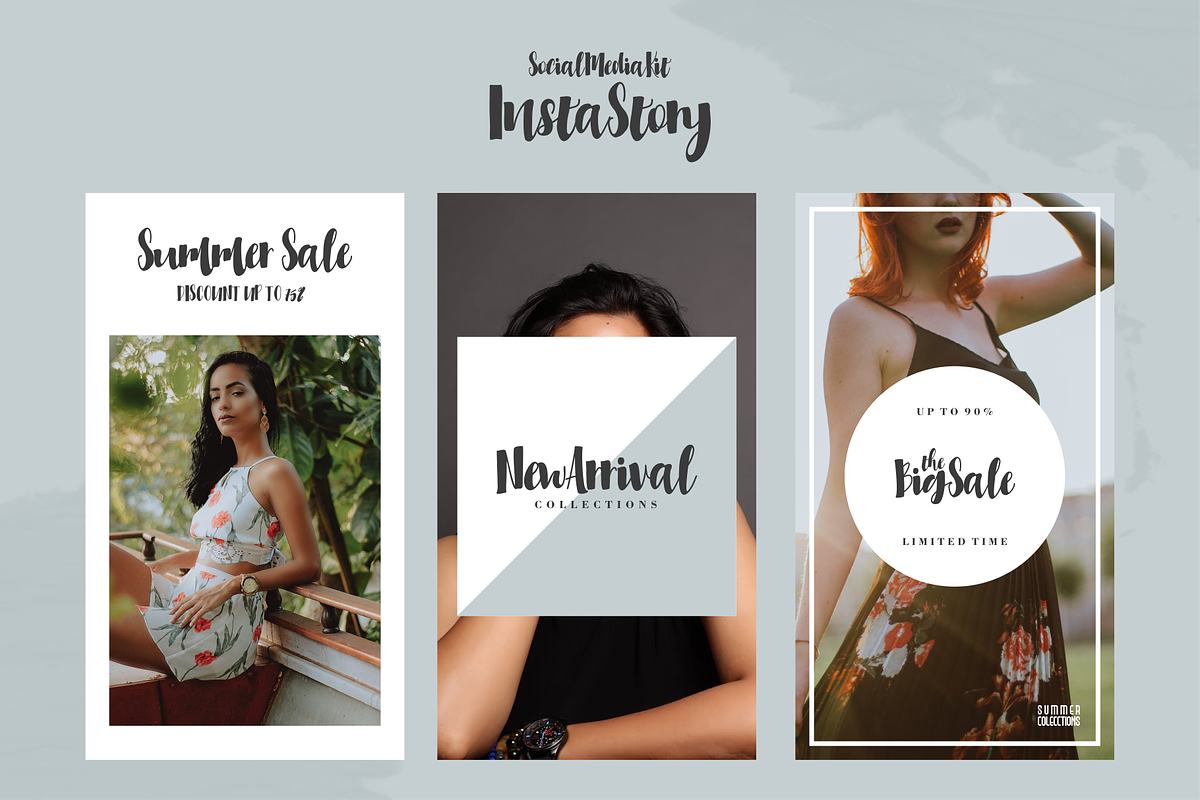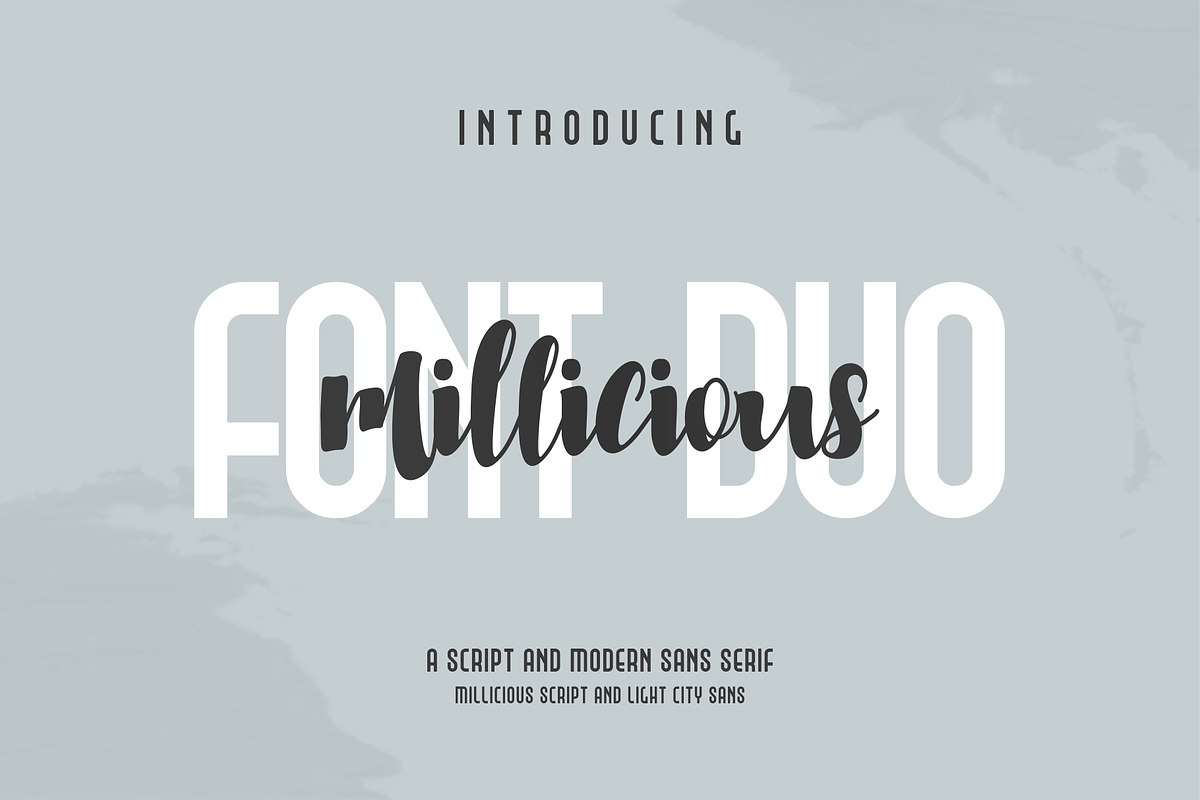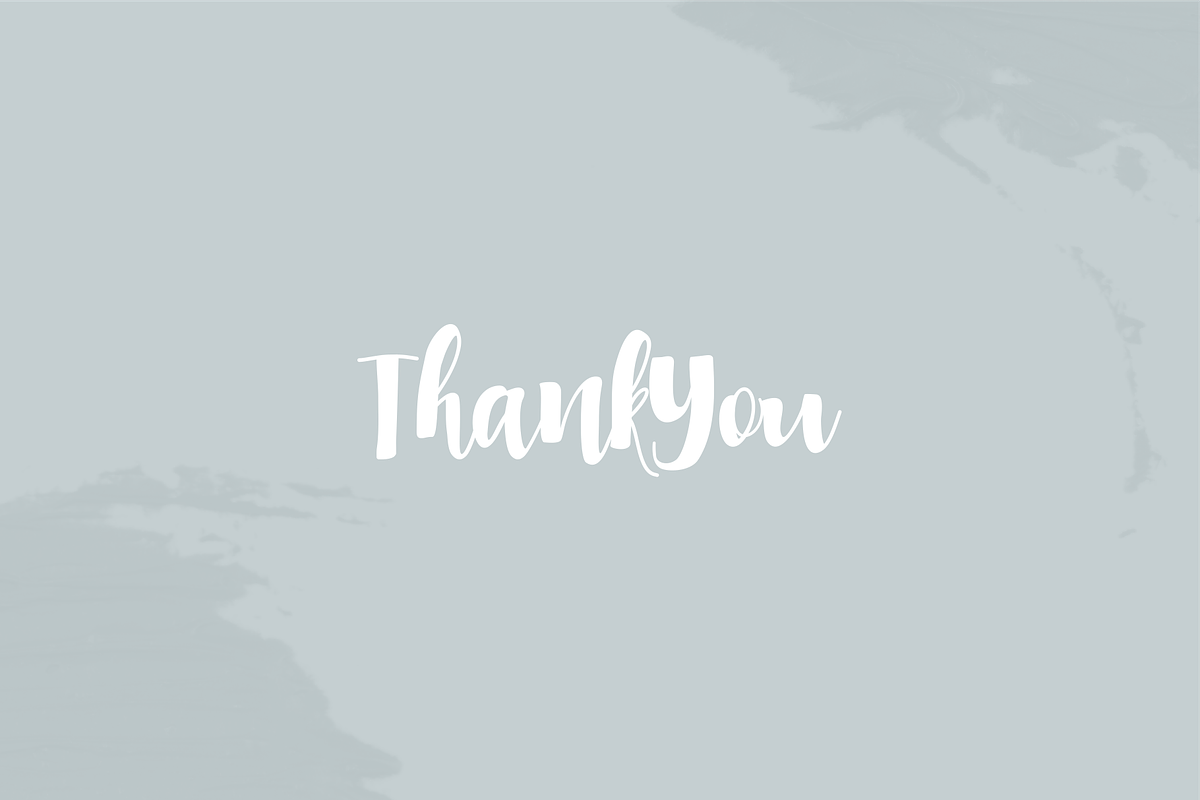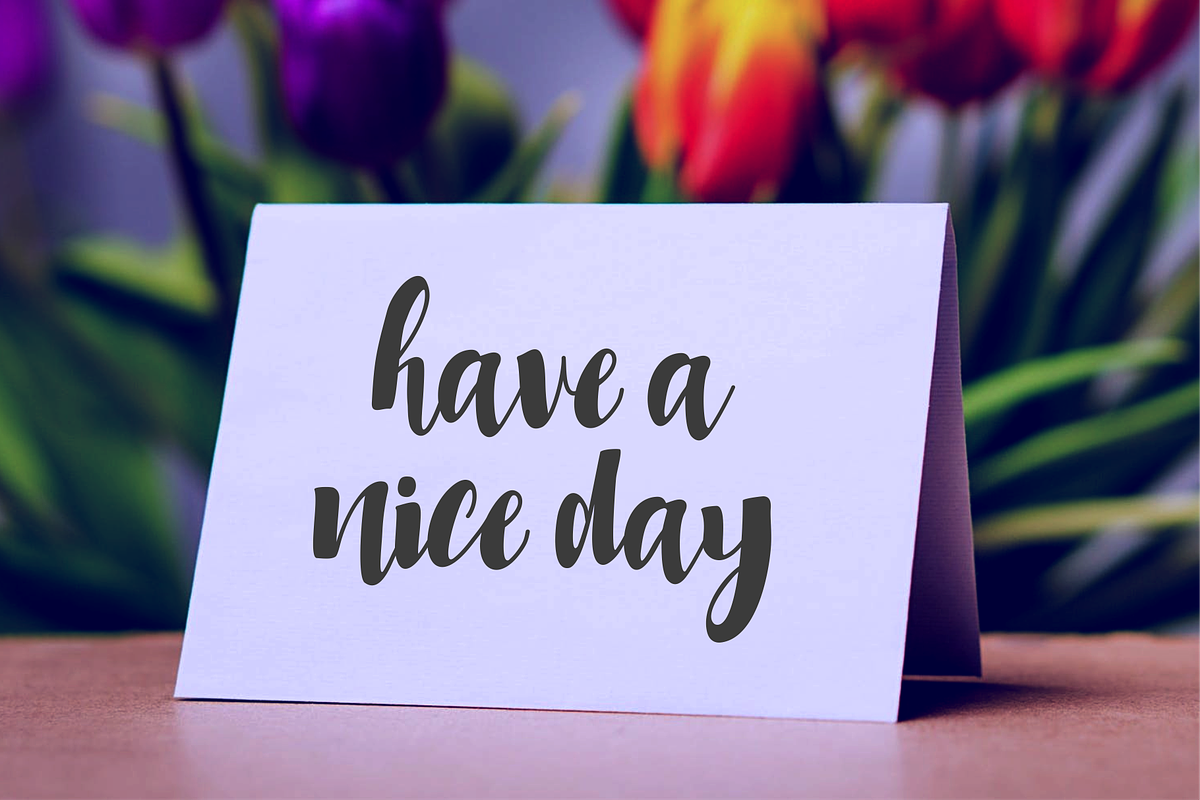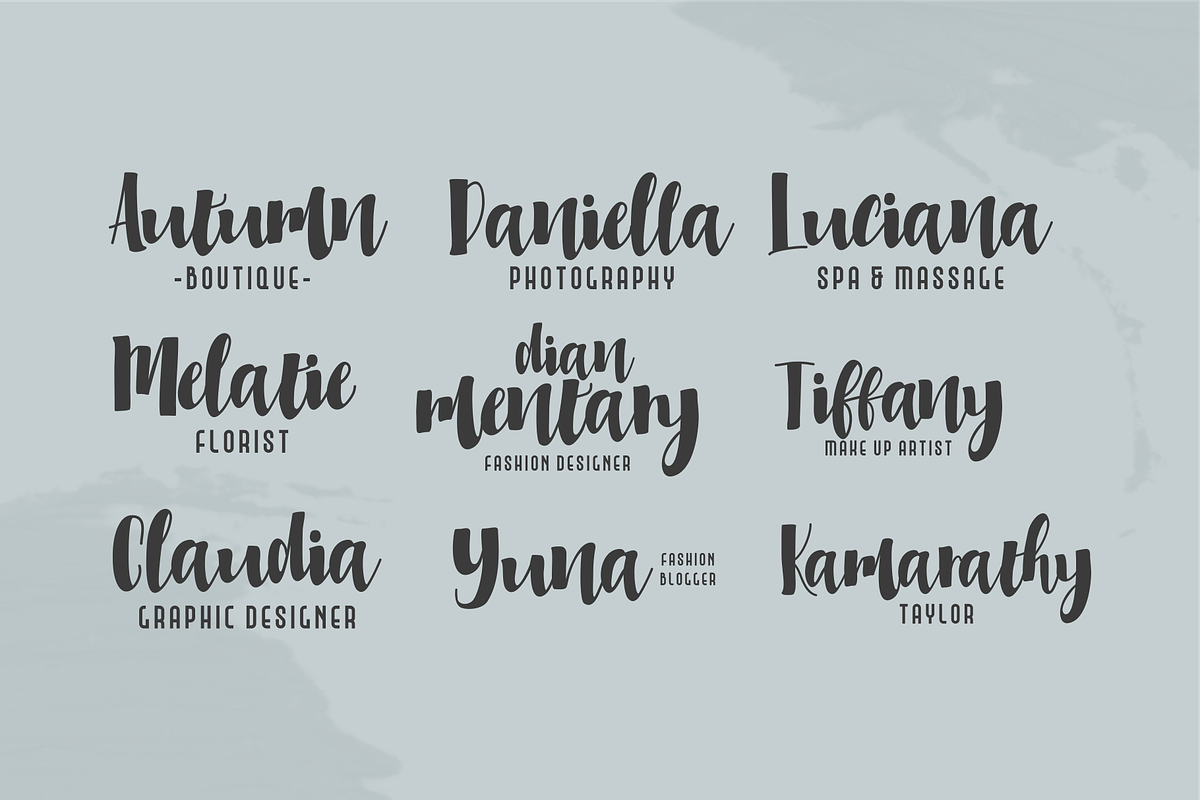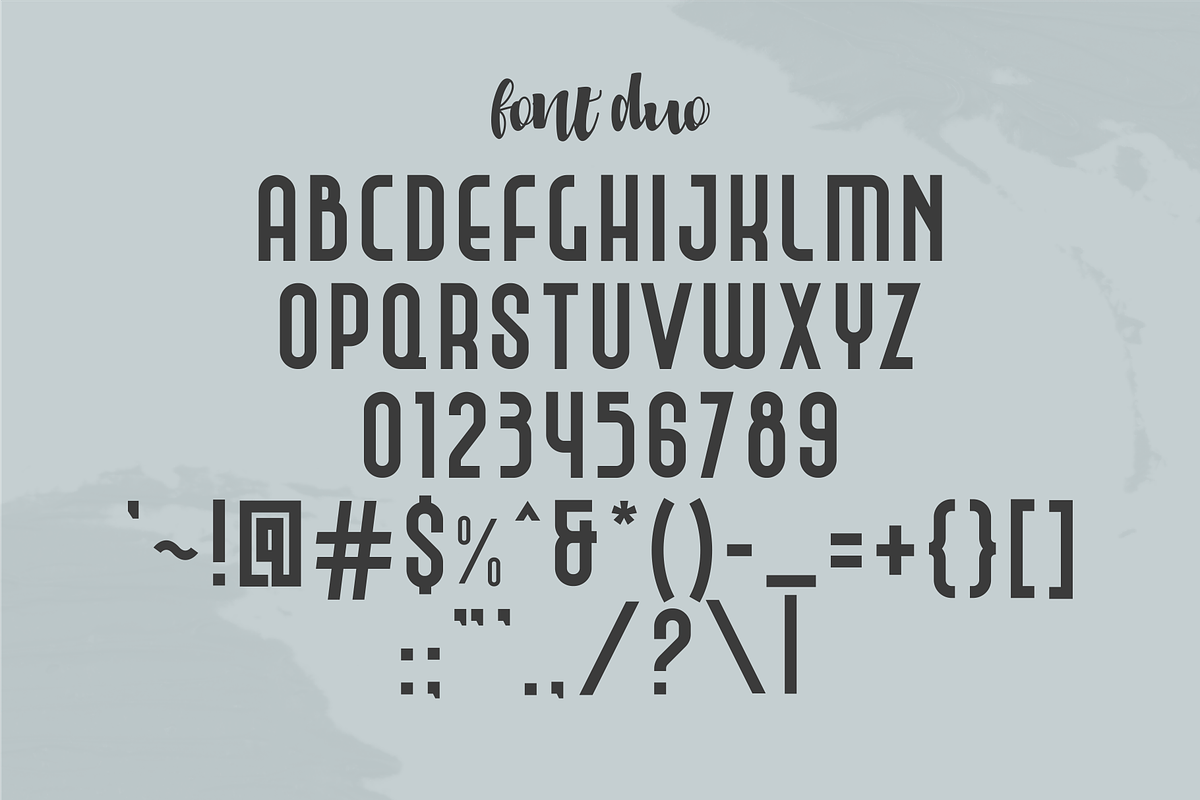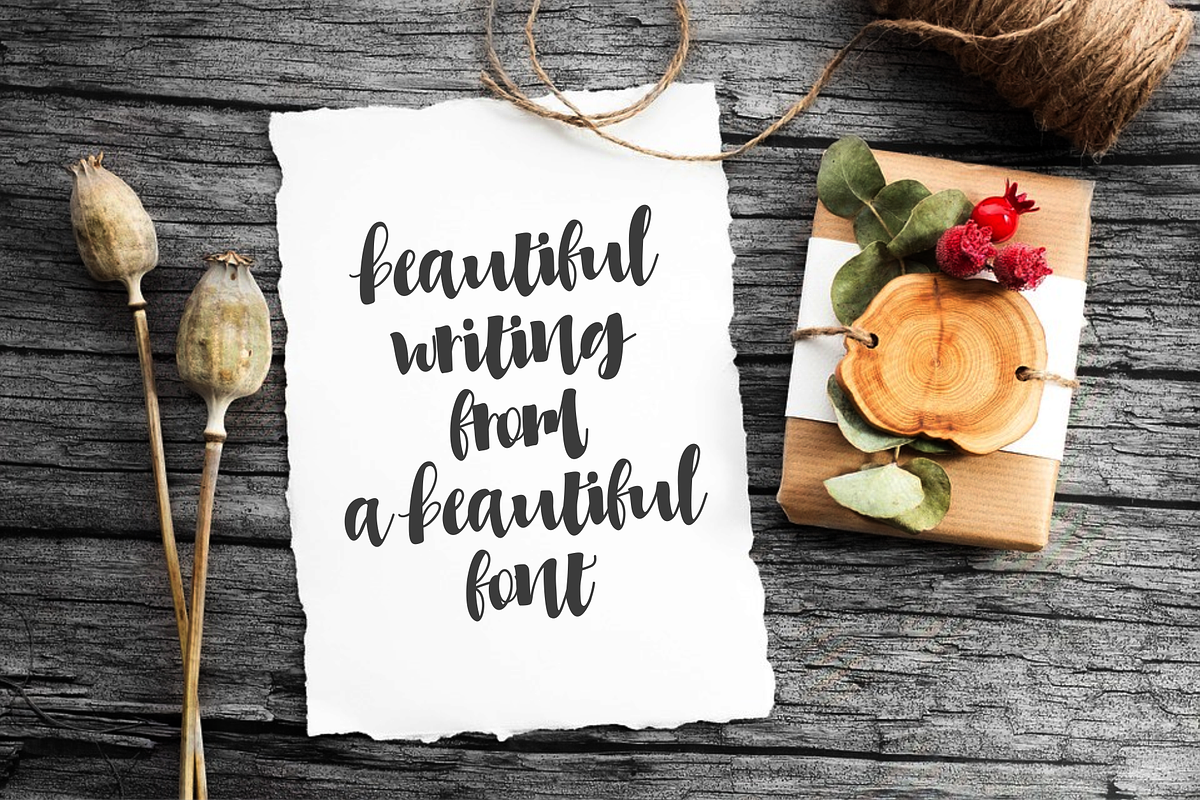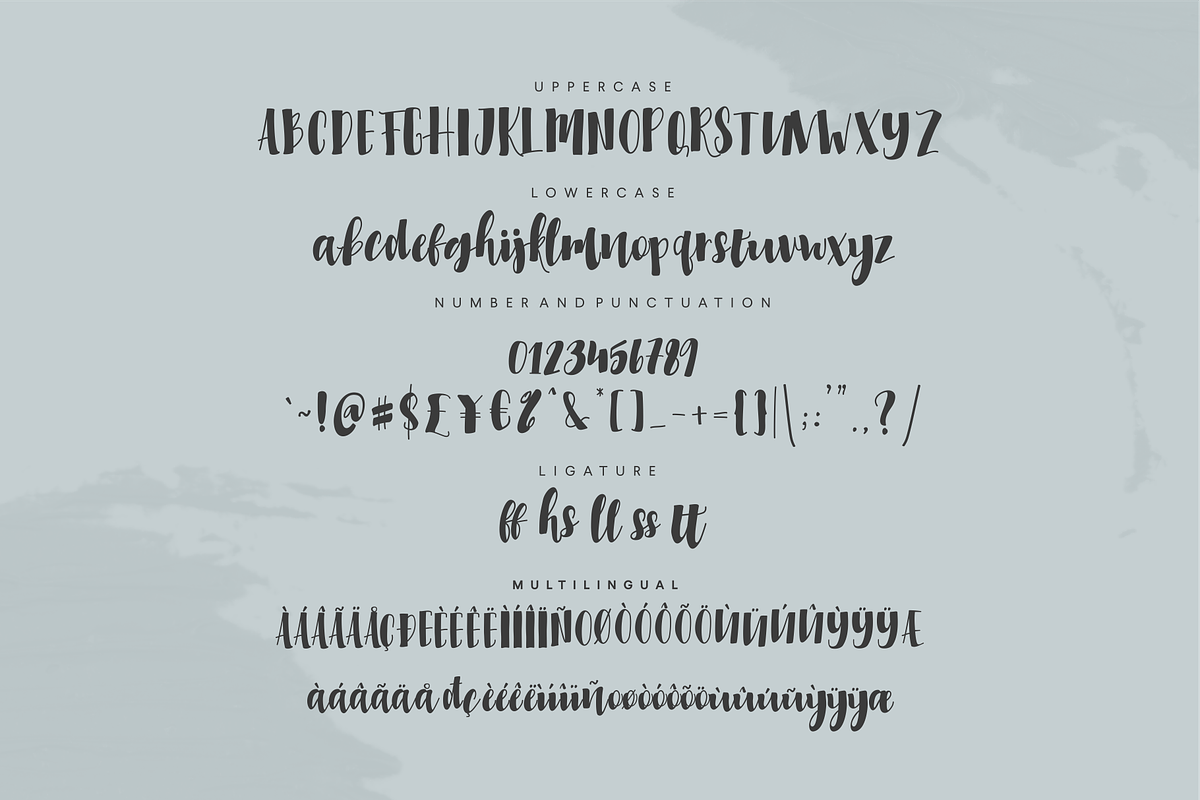
Millicious Font Duo
Hi friends:) This is my first font duo, where this font contains beautiful script handwriting fonts, and one is a modern sans serif font. This font is available in OTF and TTF formats, which can be used on Windows OS, Linux, and Mac.
Add other styles to each font with the OpenType feature.
Perfect font choice for strong projects - watermarks, quotes, photography, logos, business cards, album covers, song covers, modern product labels.
Millicious Font Multilingual support and additional symbols - spread your message globally AÀÁÂÃÄÅCÇDÐEÈÉÊËIÌÍÎÏNÑOØÒÓÔÕÖUÙÜÚÛWYÝŸỲŸÆŒßÞþ àáâãåäæçđèéêëìíîïñòóôõöøùúûüýÿ
Millicious Font Duo by 24Design Studios fits naturally into Branding, posters, packaging, typography.